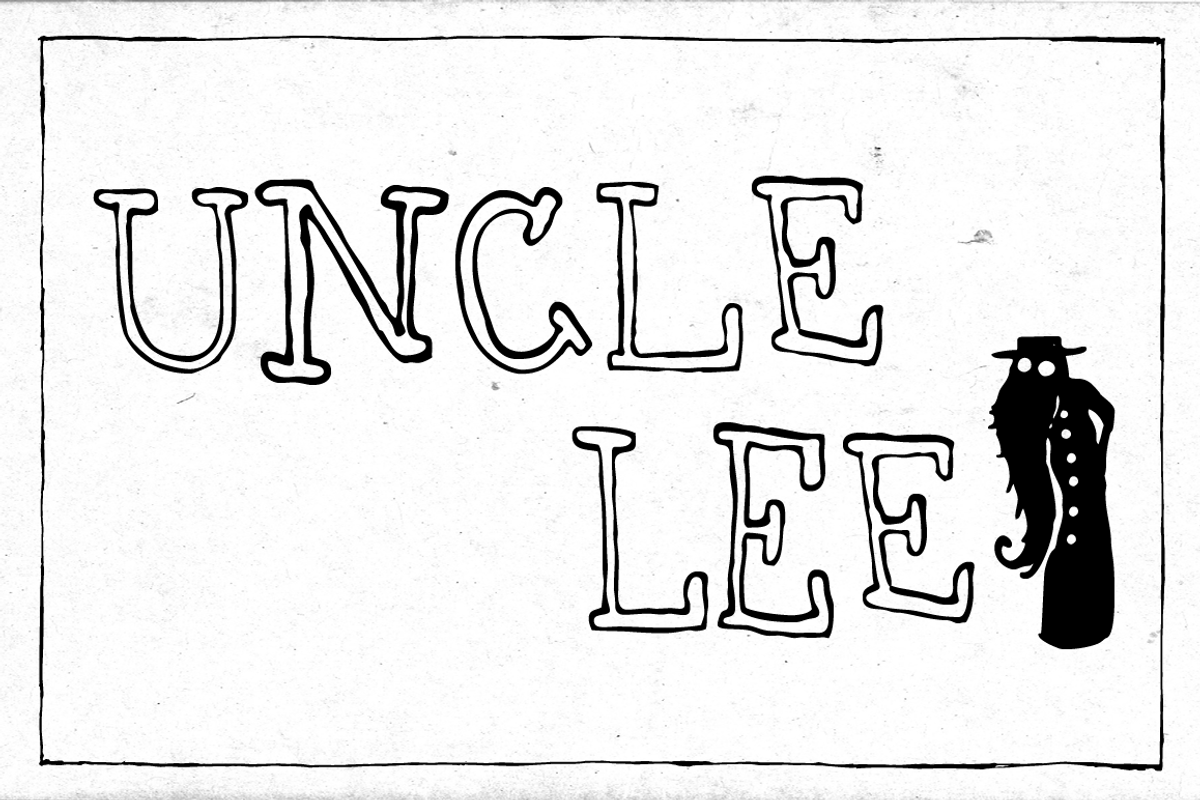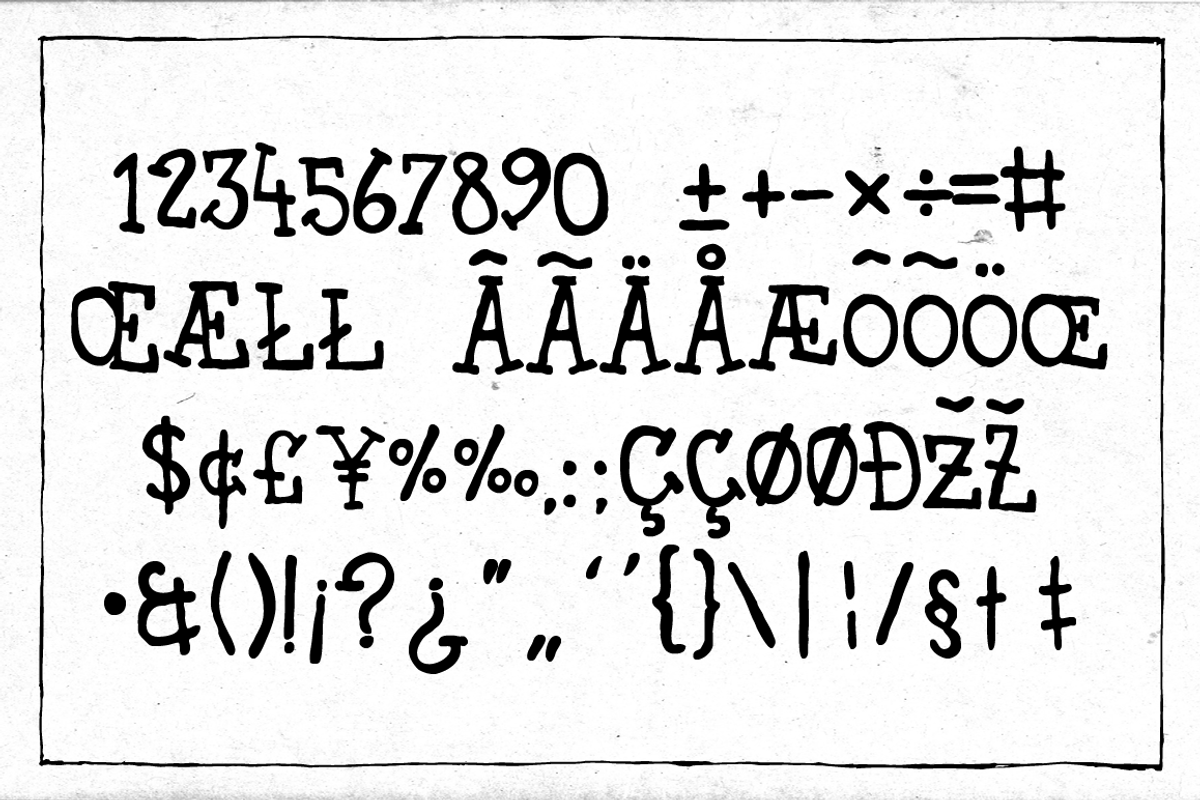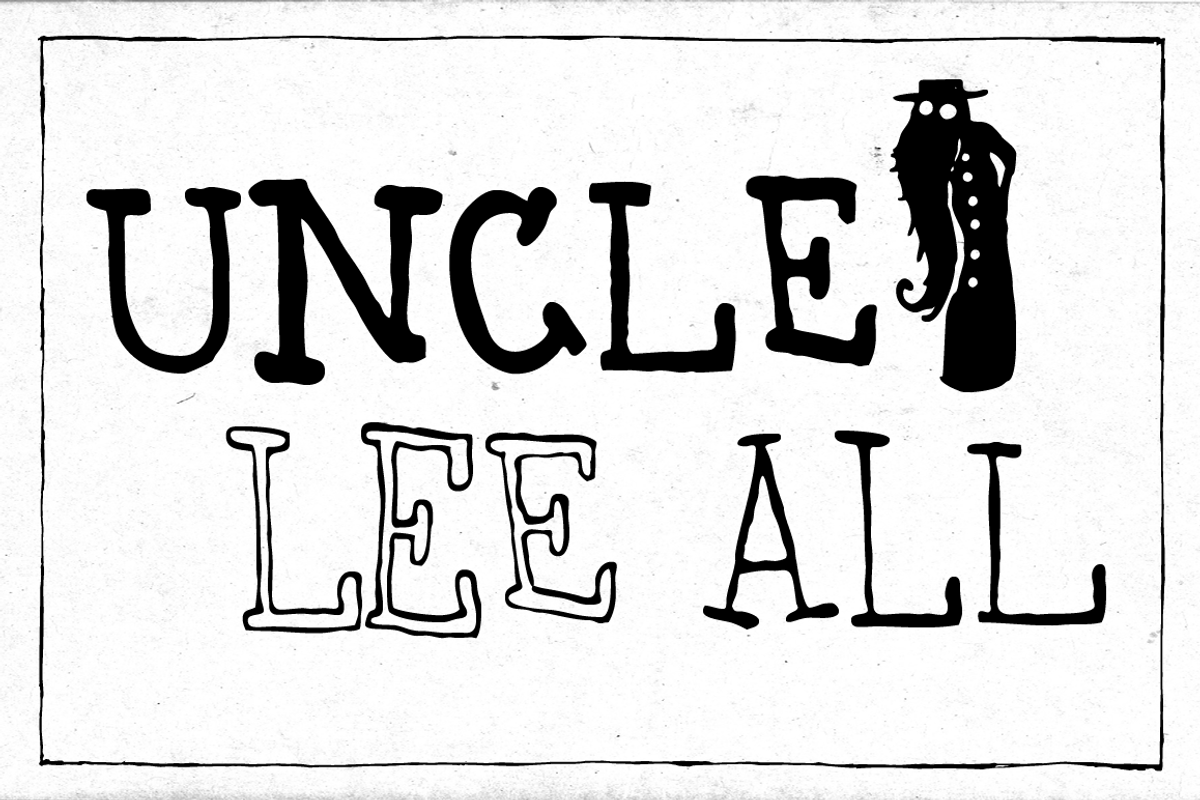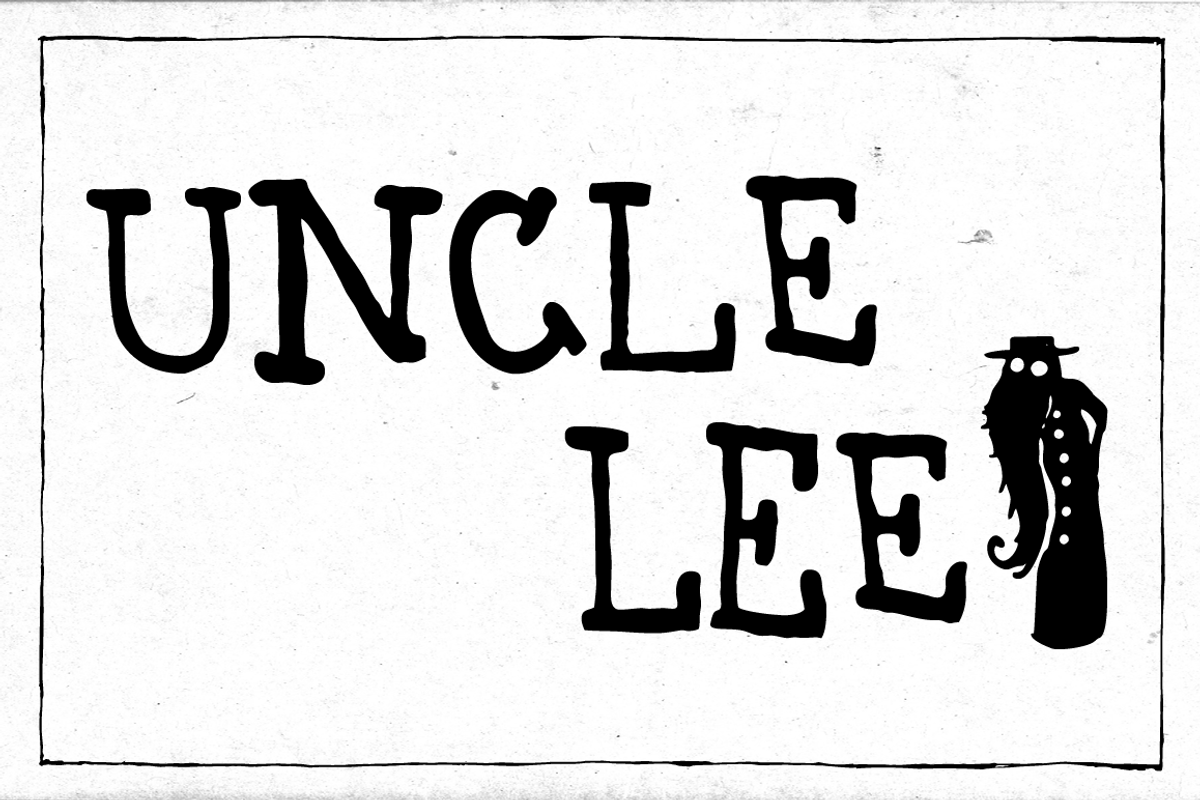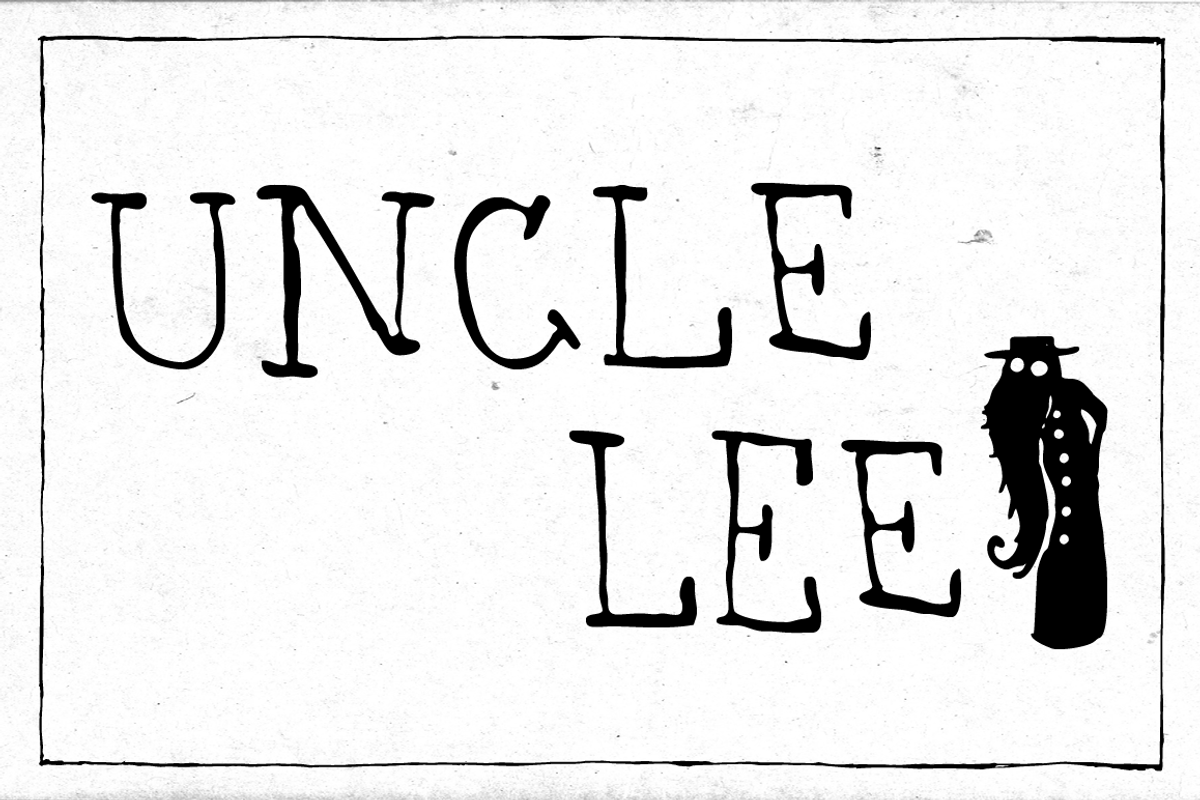
Uncle Lee - complete (3 fonts)
Uncle Lee - complete (3 fonts) by dawnland is a font selected for branding, posters, packaging, typography.
- UncleLee Light
- UncleLee Regular
- UncleLee Outline
Uncle Lee - complete (3 fonts) by dawnland fits naturally into Branding, posters, packaging, typography.